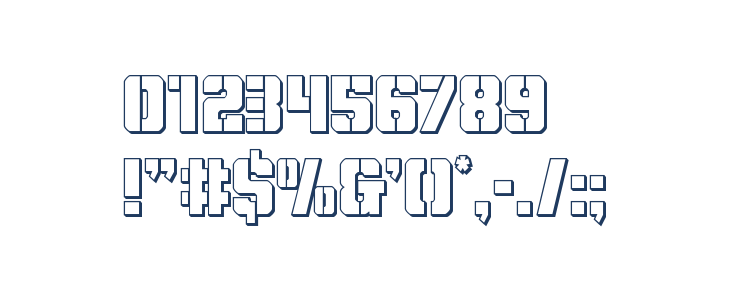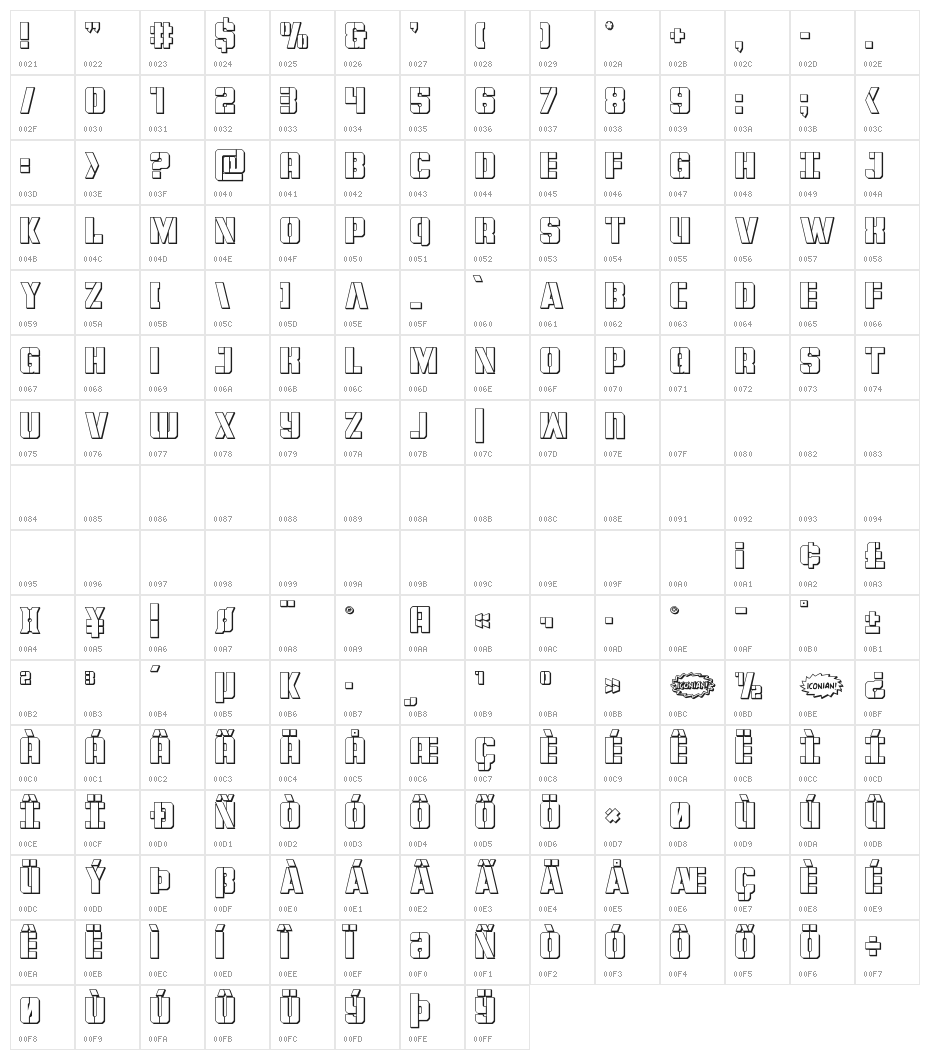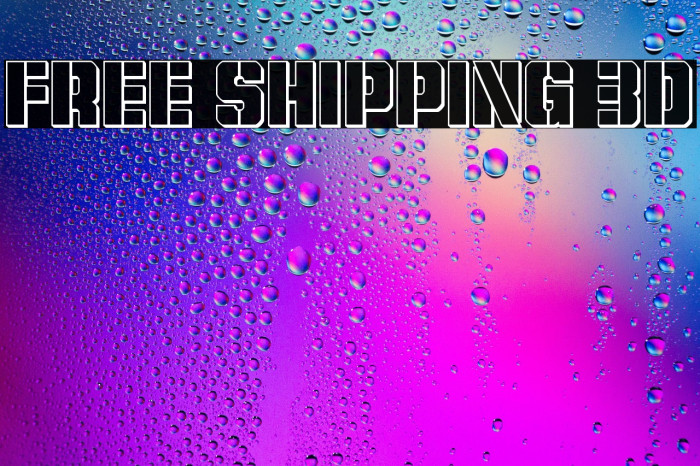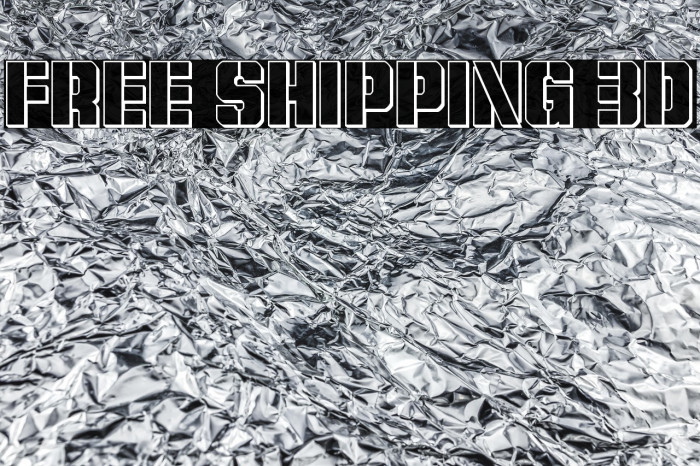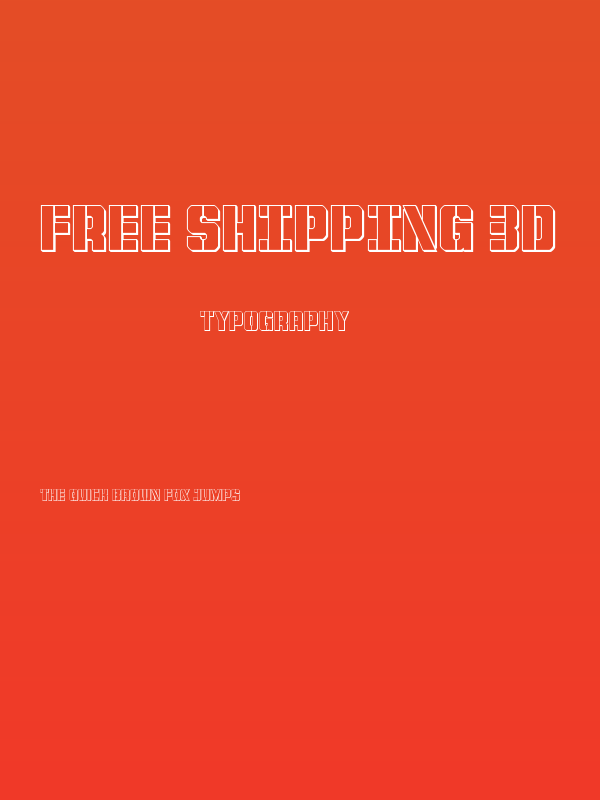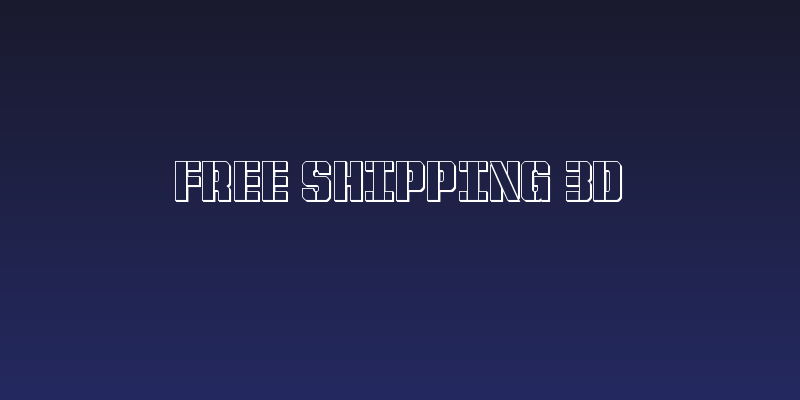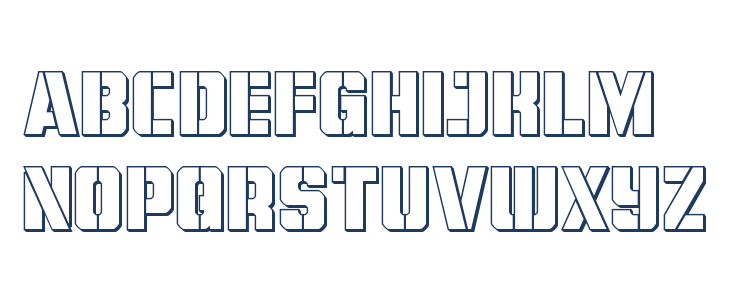
Free Shipping 3D Font
Free Shipping 3D Description
This font features a bold, three-dimensional effect with a distinct outline that gives each character a block-like appearance. The uppercase letters are uniform in height and width, creating a cohesive and structured look. The font's geometric design is complemented by sharp angles and straight lines, making it stand out with a modern and industrial feel. The numbers and special characters maintain the same style, ensuring consistency across all elements. This font is highly legible and impactful, making it suitable for attention-grabbing designs.